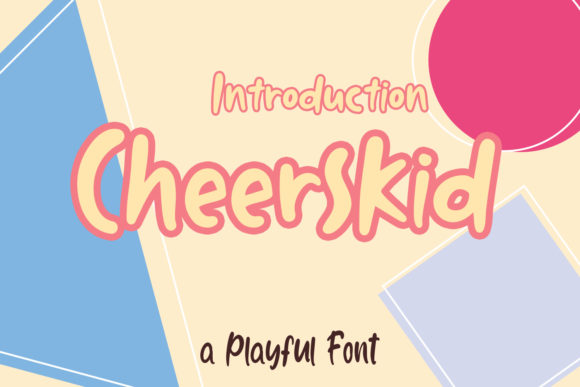
**Introducing Cheerskid Font: The Perfect Font for Your Creative Comic Book Ideas!**
Calling all comic book enthusiasts and creative writers! Prepare to be thrilled by the arrival of Cheerskid Font, a breathtaking script font that will ignite your imagination and bring your comic book creations to life.
Crafted with the utmost precision and attention to detail by the renowned font foundry, TempCraft, Cheerskid Font is the perfect fusion of playfulness and elegance. Its sweet, flowing lines and adept handwritten style will make your comic book pages pop with charm and character.
This font is more than just a collection of letters. It's a gateway to a world of creative expression. With Cheerskid Font, you can:
* **Create Compelling Comic Book Dialogues:** Its quirky nature lends a touch of whimsy to your characters' conversations, making them both memorable and engaging.
* **Design Captivating Comic Book Titles:** Let the unique style of Cheerskid Font grab your readers' attention from the get-go, setting the stage for an unforgettable comic book experience.
* **Craft Dynamic Comic Book Sound Effects:** Add an extra layer of excitement to your comic book panels with sound effects that literally leap off the page. Cheerskid Font's playful energy will make every "BAM!" and "POW!" stand out.
Whether you're a seasoned comic book creator or just starting to explore this exciting art form, Cheerskid Font is the perfect tool to elevate your storytelling. Its versatility and charm will add a touch of magic to your creations, making your comic books truly shine.